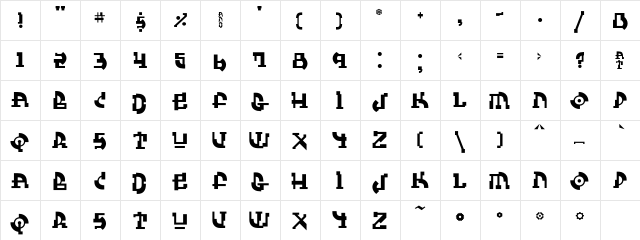
HouseFly Regular
Design Context for HouseFly Typeface
HouseFly is a composed and adaptable typeface that performs quietly and consistently across a wide range of design contexts.